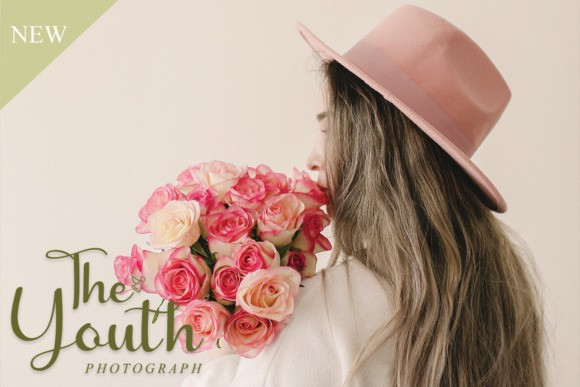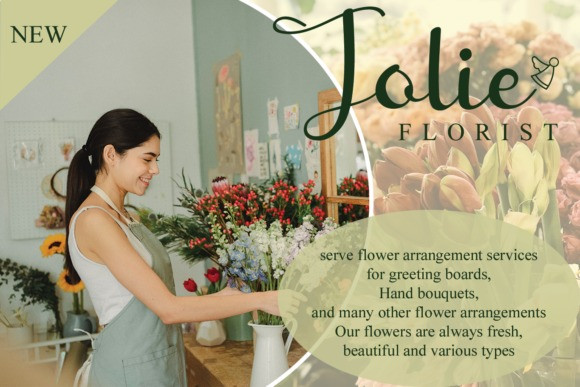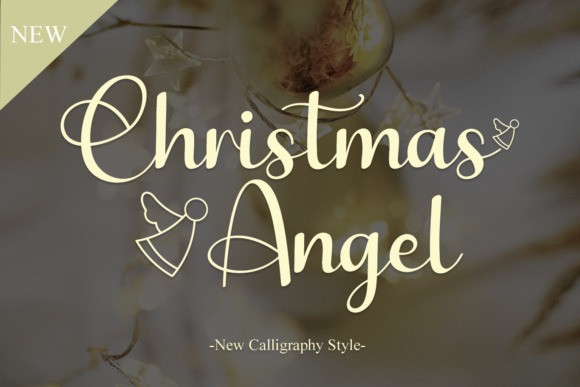
Christmas Angel Font
Christmas Angel Font is a well-balanced and delicate script font that exudes elegance and class. This font was particularly crafted for those who need a beautiful and refreshing look to their designs.